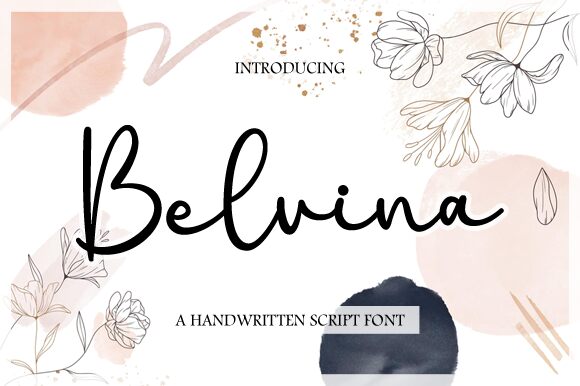
Belvina, a captivating handwritten font designed by Nirmala Creative, exudes a warm and inviting aesthetic. Its whimsical strokes and fluid letterforms create a sense of effortless elegance, evoking a charming and personable vibe. The dynamic interplay of thick and thin lines, along with the subtle variations in character shapes, lend Belvina a distinct, authentic flair, making it a standout choice for projects that require a touch of natural, hand-crafted appeal.
This versatile font lends itself beautifully to a wide range of design applications, from elegant wedding stationery and greeting cards to rustic packaging and branding materials. Its organic, calligraphic style complements both modern and vintage-inspired designs, allowing designers to infuse their creations with a sense of heartfelt authenticity and personal touch.